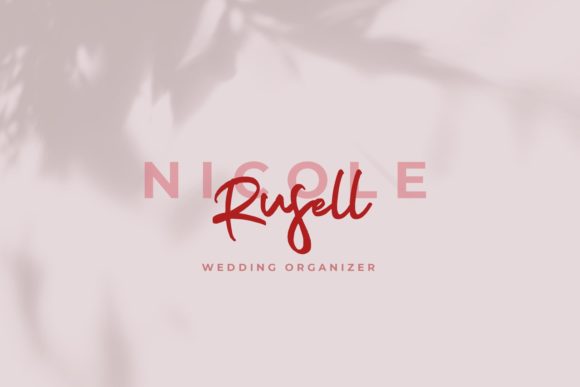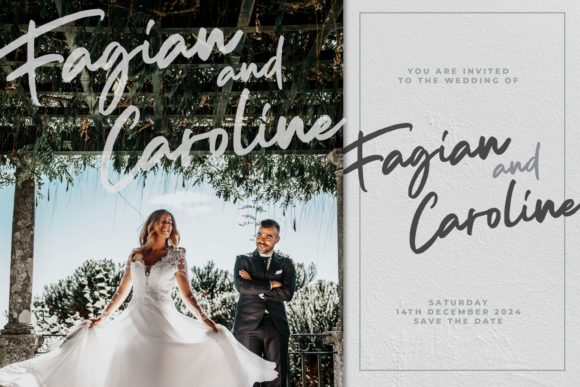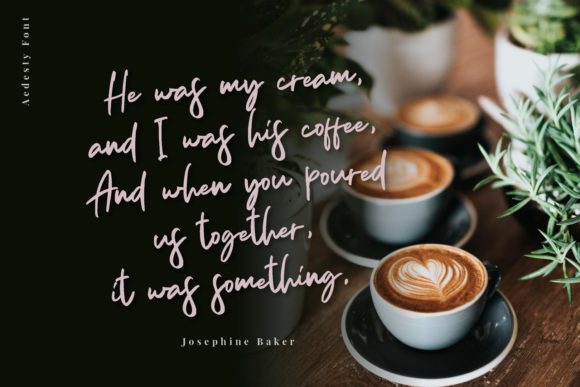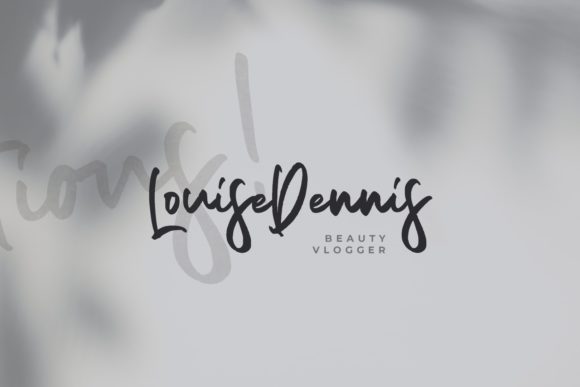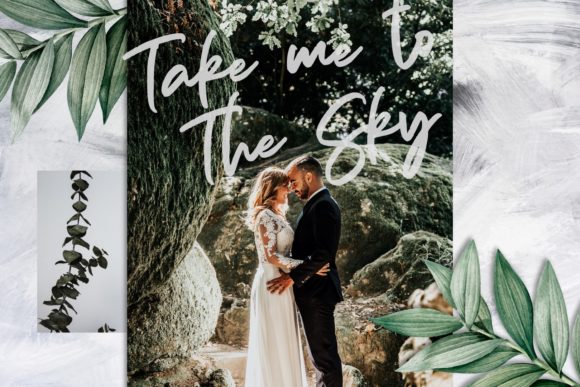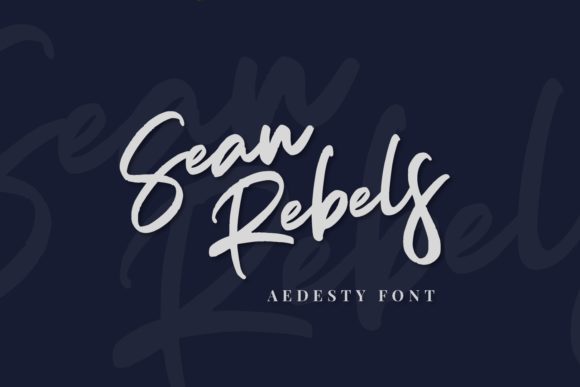
Discover the Magic of Aedesty Font
Have you ever been working on a design project, and suddenly, a spark of creativity hits you? Maybe it’s a burst of color, a clever composition, or an unexpected font choice that elevates your entire design. For me, that spark often comes from the perfect font, and I’m excited to share with you one that’s been making waves in the design community: Aedesty Font.
Aedesty Font is a smart and modern handwritten font with a light feel that’s perfect for adding a stunning twist to any design project. Whether you’re a seasoned designer or just starting out, this font is sure to bring a touch of elegance and sophistication to your work. What makes Aedesty Font so valuable for designers is its versatility and range of applications, from branding and marketing materials to digital products and more.
Aedesty Font Key Features
- Font Family: Aedesty offers a range of font styles, including Aedesty Regular, Aedesty Italic, Aedesty Bold, Aedesty Bold Italic, Aedesty Light, Aedesty Light Italic, Aedesty ExtraBold, Aedesty ExtraBold Italic, Aedesty SemiBold, Aedesty SemiBold Italic.
- Unique Characteristics: Aedesty features a unique blend of modern and classic elements, with a distinctive rounded edge and a highly legible design, making it an ideal choice for body text and headings.
Aedesty Font Review
Overall, I think the Aedesty Font has some great qualities, but it also has its limitations. Let’s dive into the details.
- The Aedesty Font has a beautiful, elegant feel to it. It’s perfect for titles and headings where you want to add a touch of sophistication.
- The font is highly legible, even at smaller sizes, which makes it great for body text and other large blocks of content.
- The font family includes a wide range of weights and styles, giving you plenty of flexibility when designing with Aedesty.
- The font can feel a bit too elegant or even sterile at times, which might not be suitable for more playful or creative projects.
- The font family is not as extensive as some other popular font families, which might limit your options when it comes to creating a cohesive design.
- The font’s legibility can sometimes be compromised at very small sizes, which might require some careful adjustments to ensure the text remains readable.
Overall, I think the Aedesty Font is a solid choice for designers who want a elegant, legible font for their projects. However, it might not be the best fit for every design style or project type.
Tips for Getting the Most Out of Aedesty Font
Experiment with different font sizes, styles, and colors to find the perfect balance for your design. Use Aedesty Font in combination with other fonts to create a visually appealing and unique design. Don’t be afraid to try new things and push the boundaries of what’s possible with this font.
Aedesty Font is ideal for creative projects such as logo design, branding, and marketing materials. It’s also great for use in digital products like websites and mobile apps. Use Aedesty Font to add a touch of sophistication and elegance to your designs.
Alternatives to Aedesty Font for Designers
Montserrat is a sans-serif font that was designed specifically for digital use. It is a great alternative to Aedesty Font for designers who want a clean and modern look. Montserrat is more geometric and has a more urban feel to it. When to use: Montserrat is perfect for designing websites, apps, and other digital products that require a clean and modern look.
Comparison to Aedesty Font: Montserrat is more geometric and has a more urban feel to it, whereas Aedesty Font is more elegant and sophisticated. Montserrat is also more suitable for digital use, whereas Aedesty Font is more versatile and can be used for both digital and print designs.